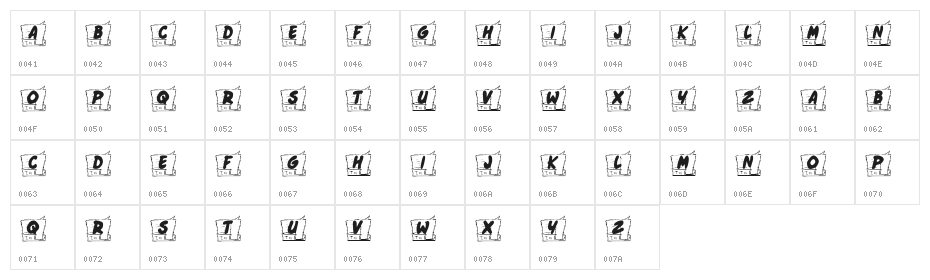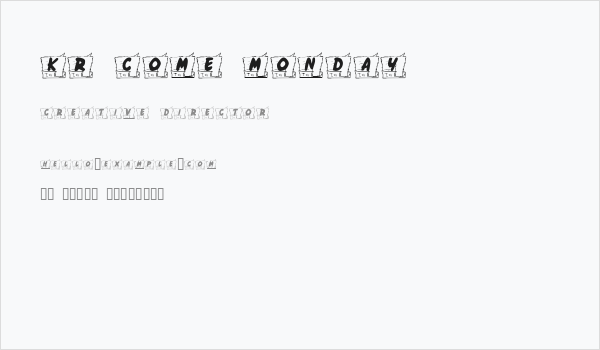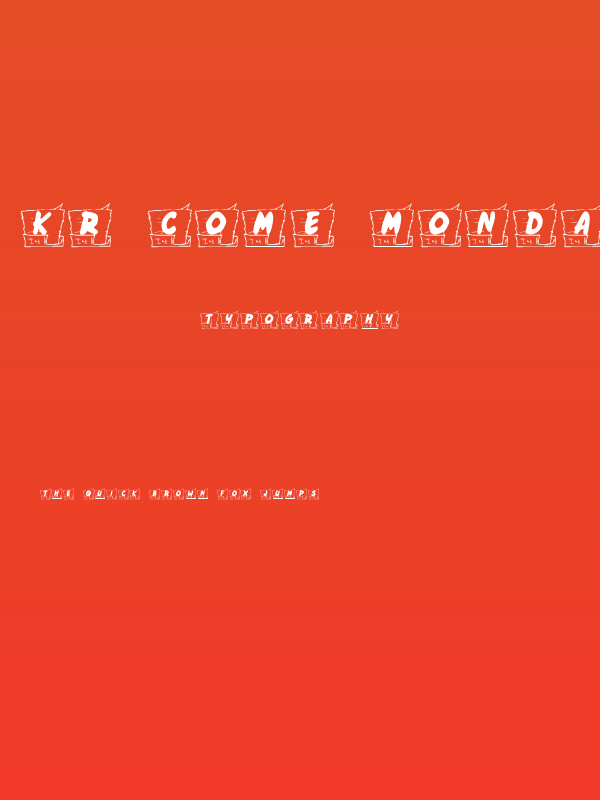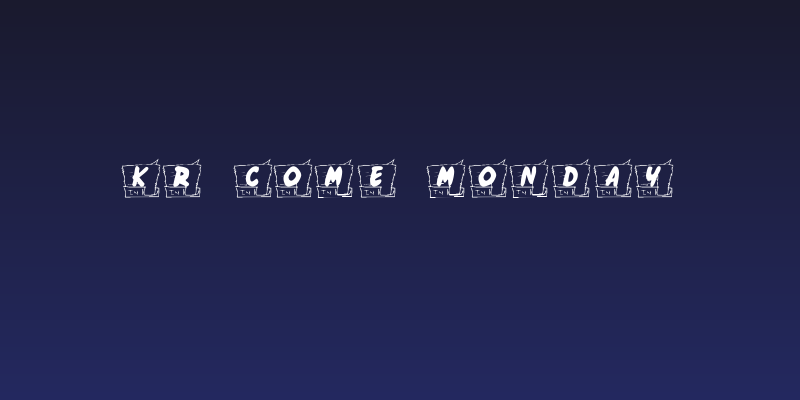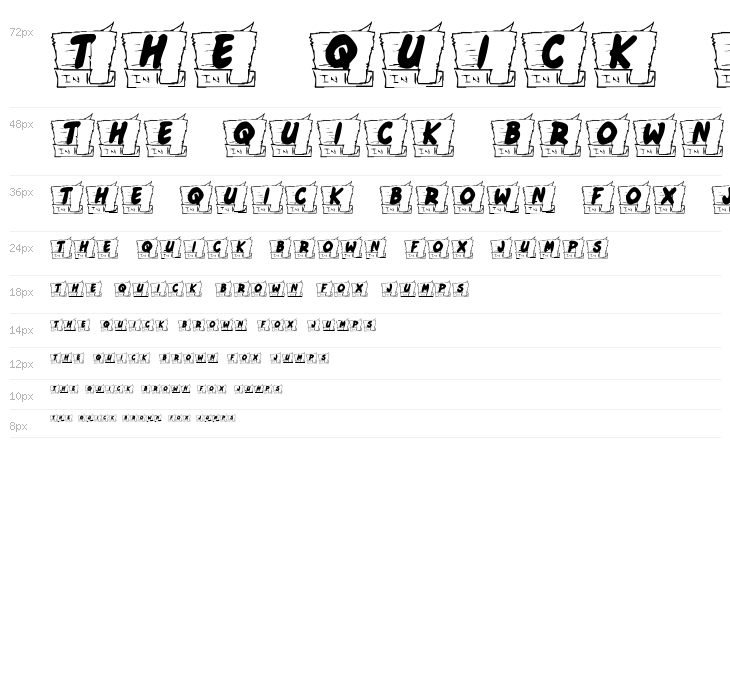
KR Come Monday Font
KR Come Monday Description
This font features a playful and decorative style, with each character enclosed in a whimsical, irregularly shaped box that resembles a torn piece of paper. The letters are bold and uppercase, with a hand-drawn appearance that adds to the casual and artistic feel. The unique design of the enclosing boxes gives the font a distinctive, creative look, making it stand out in any design project. The overall style is both quirky and engaging, perfect for projects that require a touch of fun and creativity.
| Proposed Projects | Ideal for children's book covers, playful posters, creative invitations, and artistic branding materials. |